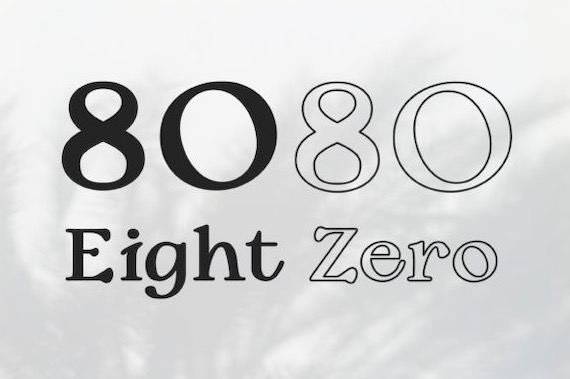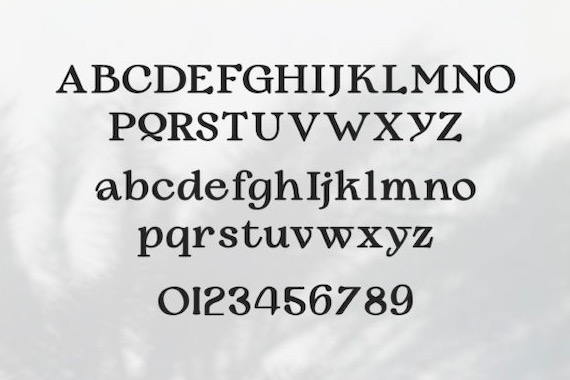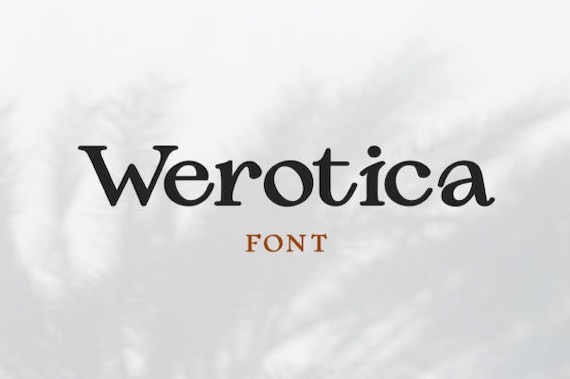
Werotica is an elegant and powerful Display Serif font from designer Extumus Studio. This basic font has a rounded and fancy style. Besides, with Werotica font, you can see that it has not too thick and not too thin strokes.
Werotica Display Serif Font
Designer Name: Extumus Studio